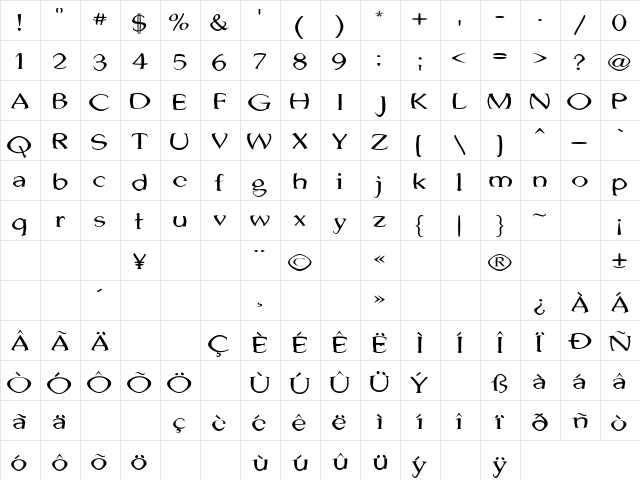
Jhunwest Convex Regular
Design Context for Jhunwest Convex Typeface
Jhunwest Convex is a composed and adaptable typeface that performs quietly and consistently across a wide range of design contexts.